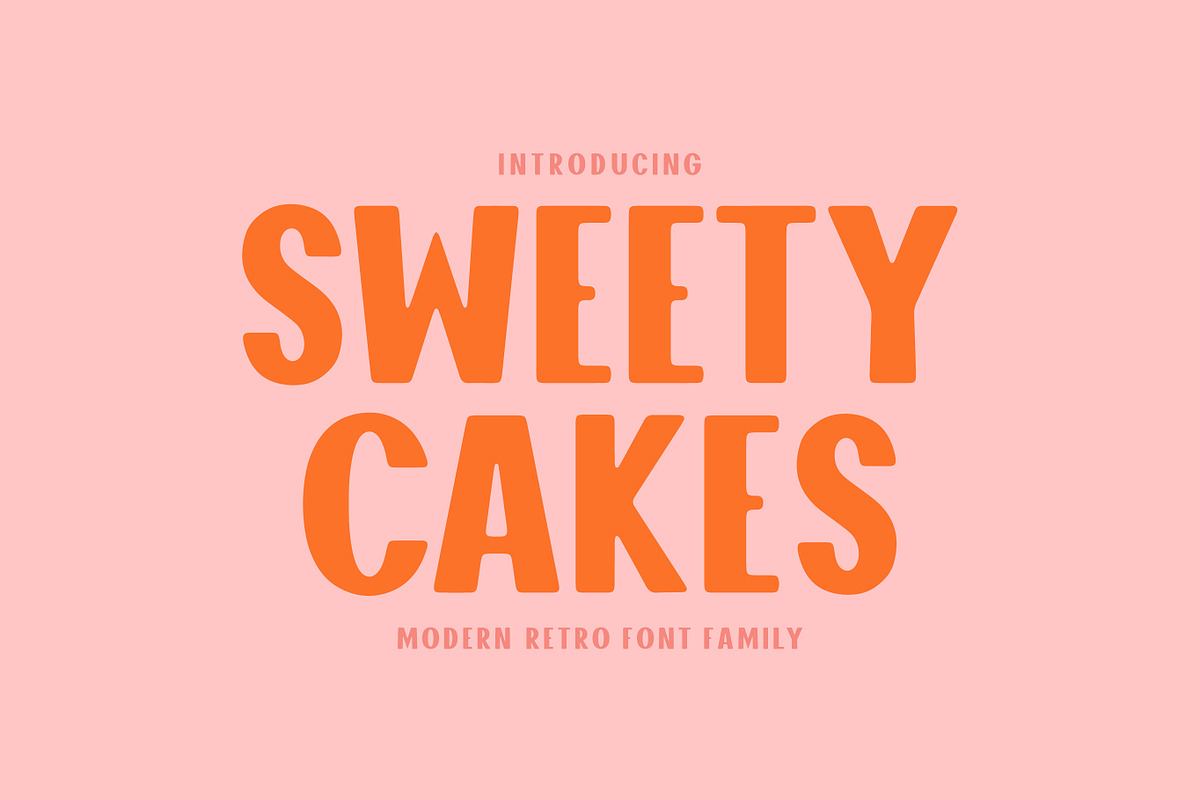
Sweety Cakes Font Family Free Download is a delightful and playful typeface collection designed to add charm and sweetness to your creative projects. With its rounded shapes, soft curves, and cheerful personality, this font family is perfect for bakery branding, children’s books, party invitations, product packaging, and cute social media graphics.
Whether you're crafting a whimsical logo or designing for a sweet-themed product, Sweety Cakes brings joy, warmth, and friendliness to your typography. It's the ideal font family for projects that need a happy and heartwarming touch.